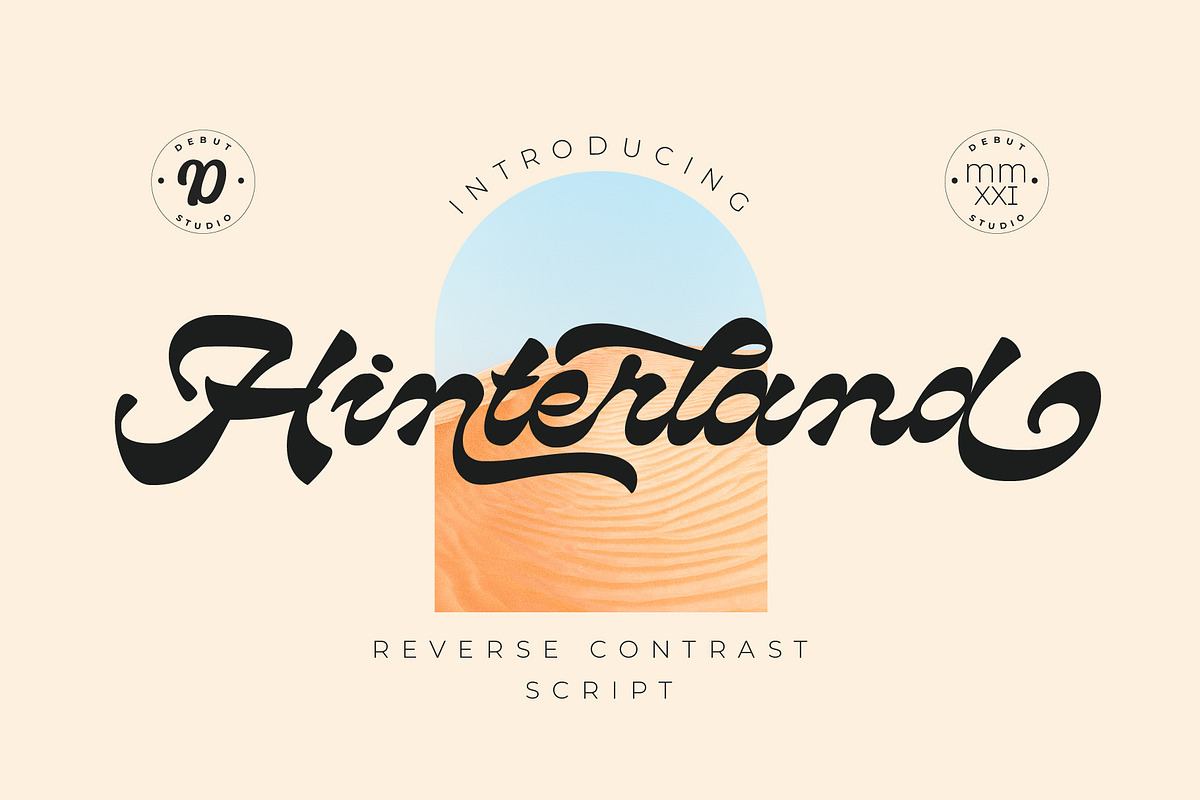
Bold, artistic, and undeniably unique, Hinterland | Reverse Contrast Script Font Free Download is a standout typeface that flips traditional contrast on its head. With thick horizontal strokes and thinner verticals, this script font offers a fresh, eye-catching twist on classic calligraphy—perfect for logos, posters, apparel, and creative branding.
Hinterland’s energetic curves and stylish rhythm give your text a handcrafted feel while still maintaining excellent legibility. Its reverse contrast design makes it especially effective for bold headlines and standout typographic compositions.